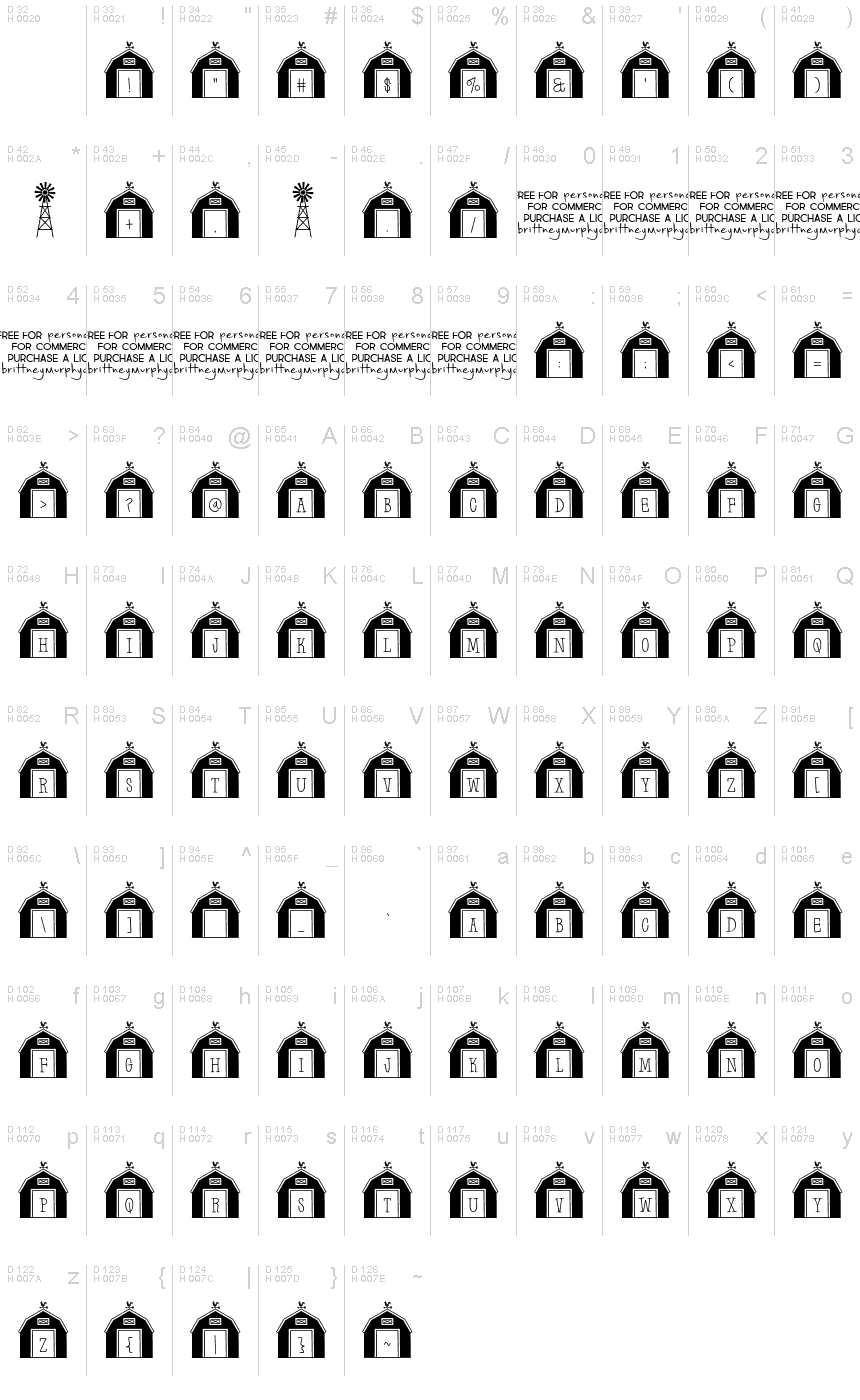
Barn-Letters Filled
Barn-Letters Filled is the ultimate display font that embodies the spirit of rustic farm life. With its light weight and decorative style, this font is perfect for creating logos, signage, and packaging designs for organic food brands, farmers markets, and country-themed events. Its unique visual description of barns with letters inside will add character to any project. The Barn-Letters family designed by Brittney Murphy Design offers a wide range of options to choose from. Whether you're looking for a semi-bold font or a condensed typeface, Barn-Letters has got you covered. Get creative with your next design project using Barn-Letters Filled!
Barn Letters is a fun barn font! There are two versions: one regular and one with the barn color filled in.
Use the circumflex ^ symbol for an empty barn and the asterisk * or dash for a windmill!